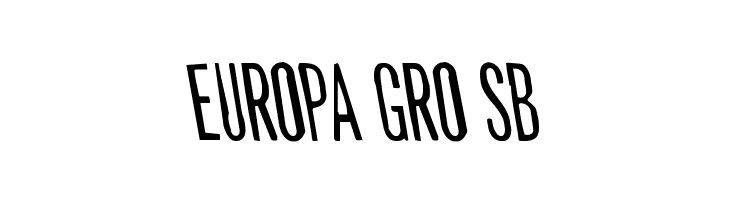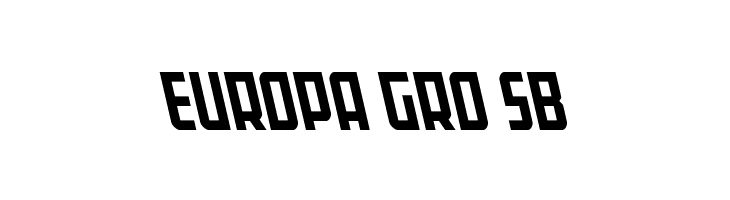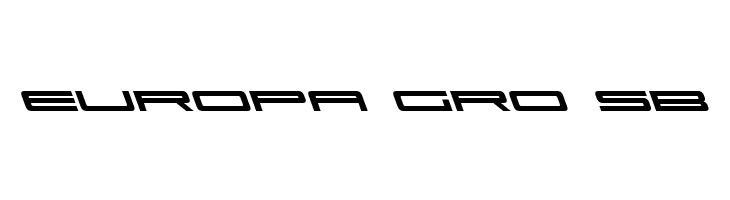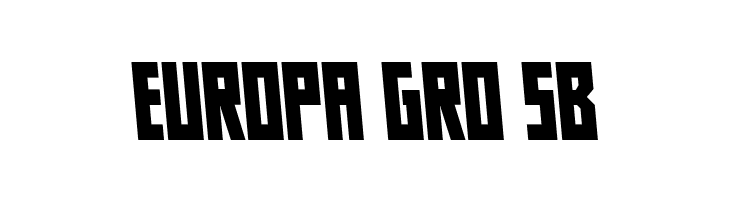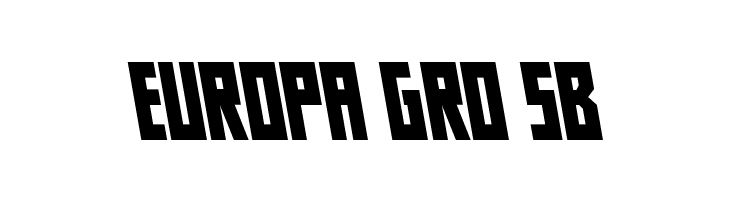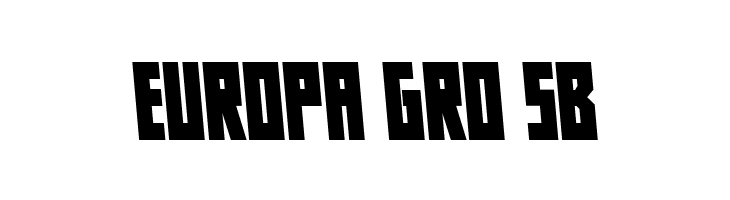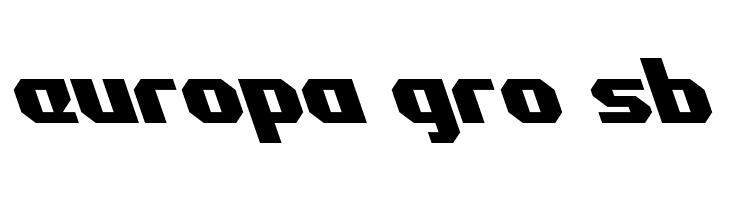
A bold, rough, and narrow font with a dramatic, distressed style.
A bold, slanted, and geometric font with a dynamic and energetic style.
A futuristic, angular font with a sleek, italicized design.
A bold, futuristic font with a semi-italic slant and geometric precision.
A bold, angular font with a dynamic slant and geometric influence.
A bold, angular font with a dynamic, futuristic style.
A bold, geometric font with angular, block-like letters.
A bold, angular font with a modern, geometric style.
A bold, geometric stencil font with a dynamic, angular style.
A bold, geometric stencil font with a modern, industrial feel.